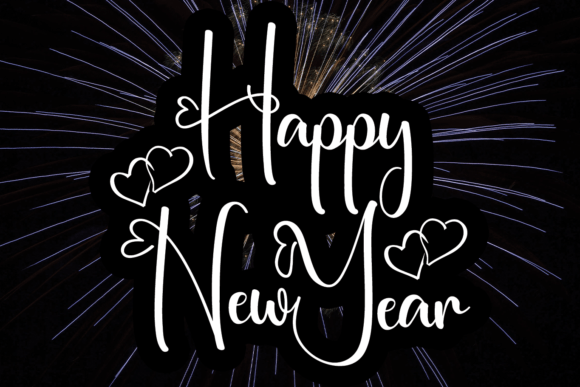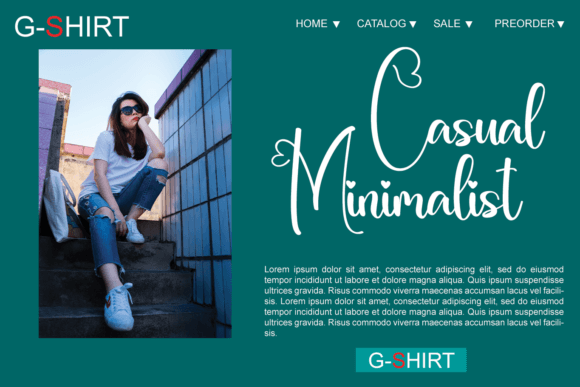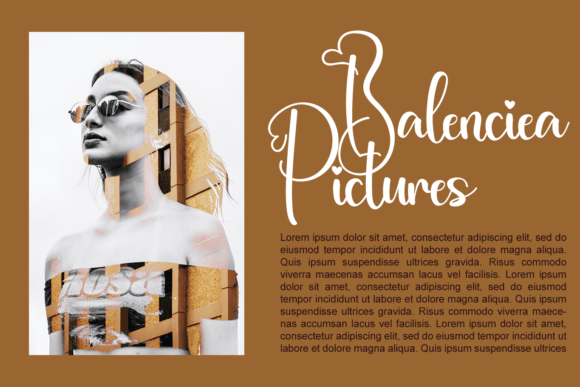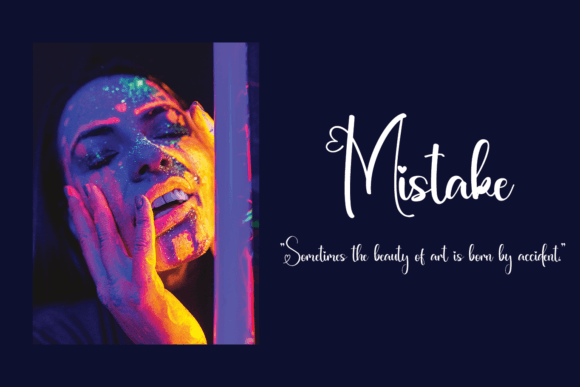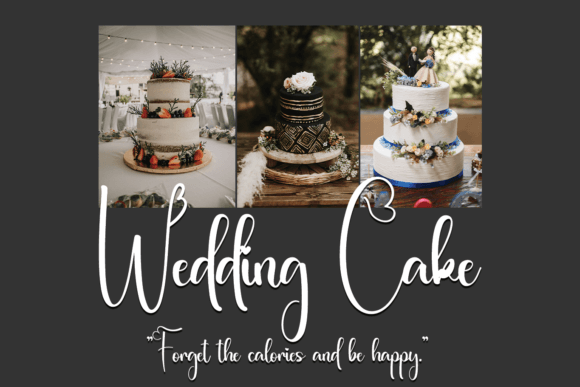
Happy New Year Font
About Happy New Year Font
Happy New Year Font is a stylish handwritten typeface that blends sophistication with a modern asymmetrical flair. Its flowing strokes and expressive charm bring a customized, high-end look to any design. Whether you’re crafting invitations or branding materials, this font adds a luxurious feel that makes your work stand out.
Where to Use Happy New Year Font
This font is not only elegant but also highly versatile. It works beautifully in a wide range of creative and professional applications, such as:
• Wedding invitations and stationery
• Thank you cards and seasonal greetings
• Elegant logo and brand designs
• Quote graphics for social media
• Event posters and promotional materials
• Personalized business cards and product packaging
Because of its refined appearance, Happy New Year Font is ideal for any project where style and individuality matter.
What Makes It Special?
There are many handwritten fonts out there, but Happy New Year Font offers something unique. It feels custom and organic, yet remains polished enough for upscale uses. Here’s why it’s a great choice:
• Elegant flow: The strokes feel natural, giving your text personality.
• Modern asymmetry: Adds visual interest without compromising readability.
• High compatibility: Looks stunning both in print and digital formats.
• Ready for all seasons: Ideal for holidays, weddings, branding, and beyond.
Furthermore, its clean baseline and varied letterforms help you create eye-catching designs that feel personal yet professional.